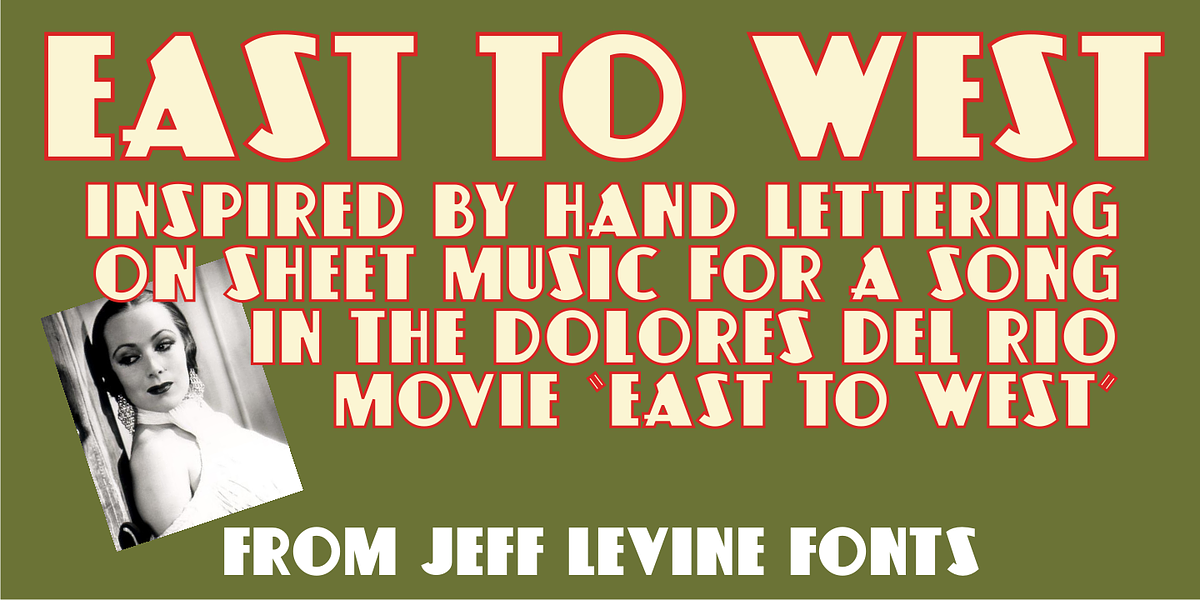
East to West JNL
Sheet music for a song featured in "East to West", a film starring Mexican bombshell Dolores Del Rio, had the movie's name lettered in a bold sans style with early Art Deco influences. East to West JNL preserves not only the name, but all of the characteristics of this wonderful bit of typographic nostalgia.